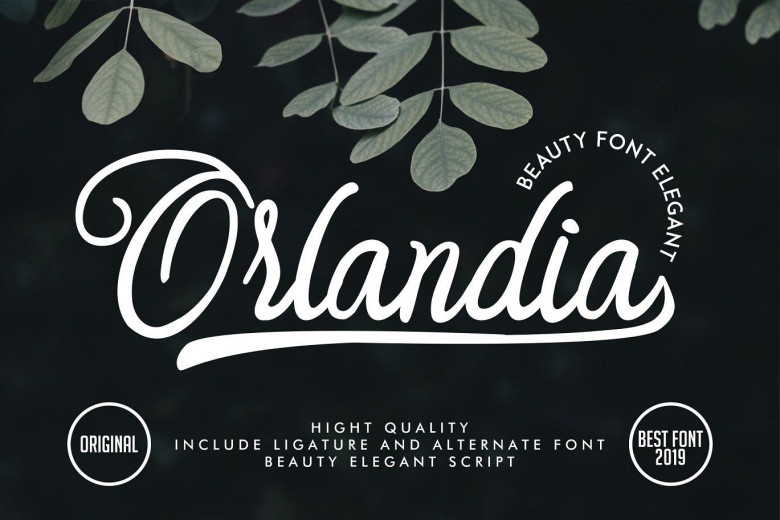
Orlandia Calligraphy Script Font
Orlandia Calligraphy Script Font that will give instant flair to your designs. font with contemporary, sophisticated accents. Orlandia script includes Open Type features with stylistic alternates and ligatures, making the font look as natural as possible.